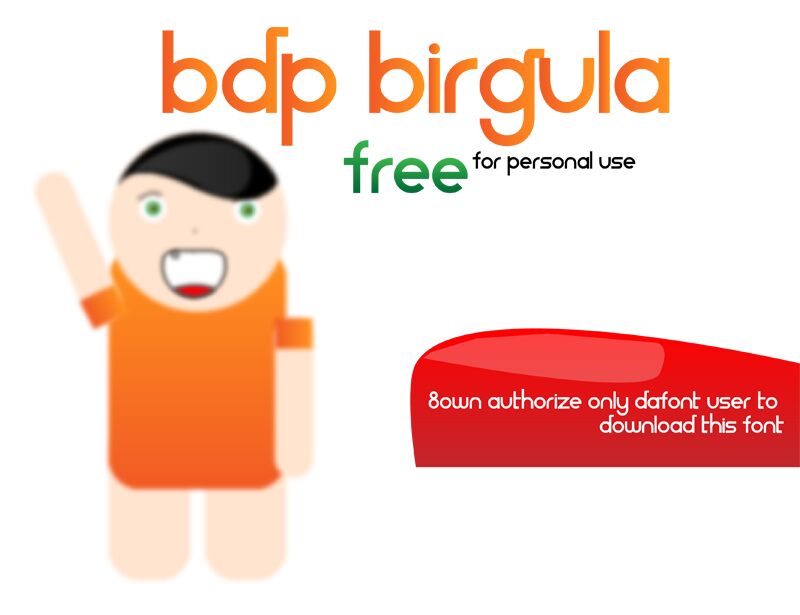
BDP Birgula by Álvaro Thomáz of 8own Graphics and Fonts is a free geometric sans serif with broad, circular forms and an assertive lowercase silhouette. Its strokes stay even and clean, with tight joins that give the letters a compact flow. The single-storey shapes and deep, curling descender add a playful note to an otherwise disciplined construction.
Logo design is its strongest setting, especially for fashion labels, music artwork, and event posters that benefit from smooth curves and an unconventional word shape. Its rounded geometry also suits contemporary culture and nightlife projects, where the dramatic descender can become a recognizable brand detail.